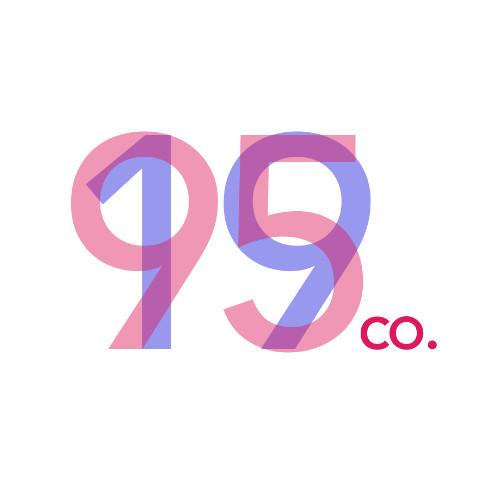
Goetz is a cool and thick lettered display font. This font is ideal for writing web designs, business cards, or pretty much anything else that requires an assertive touch.